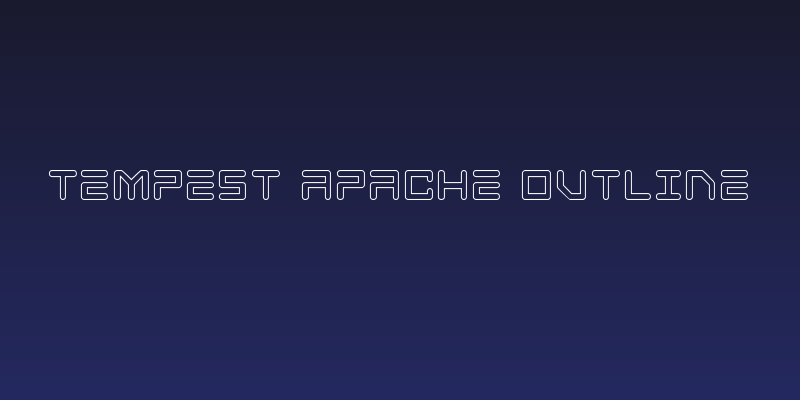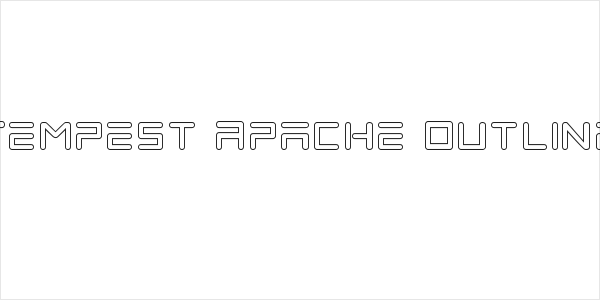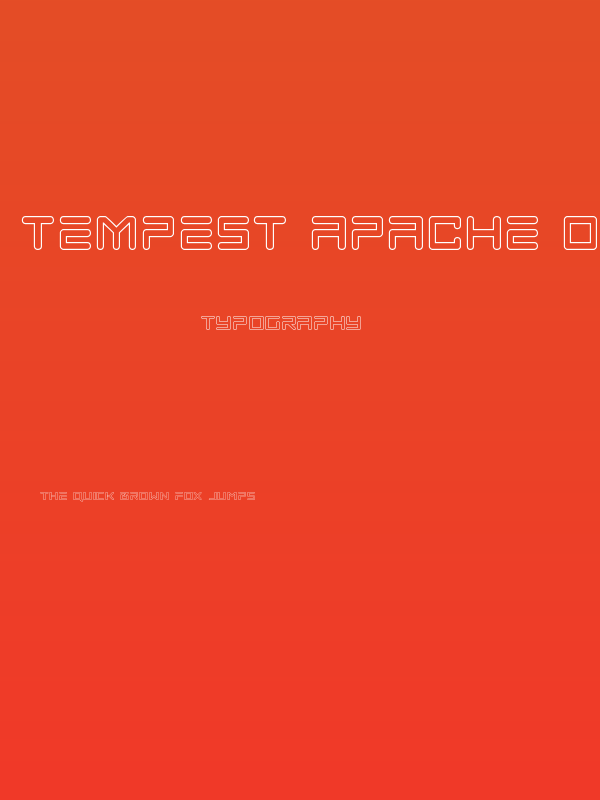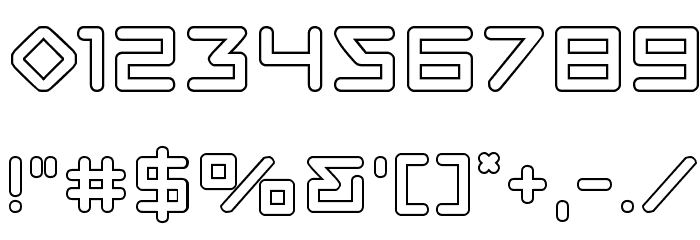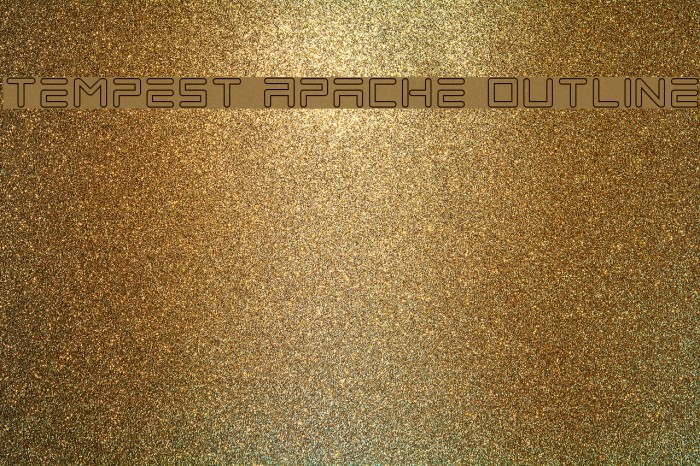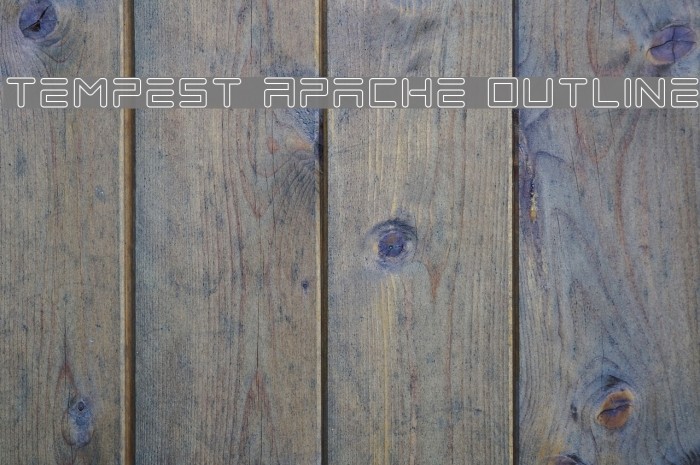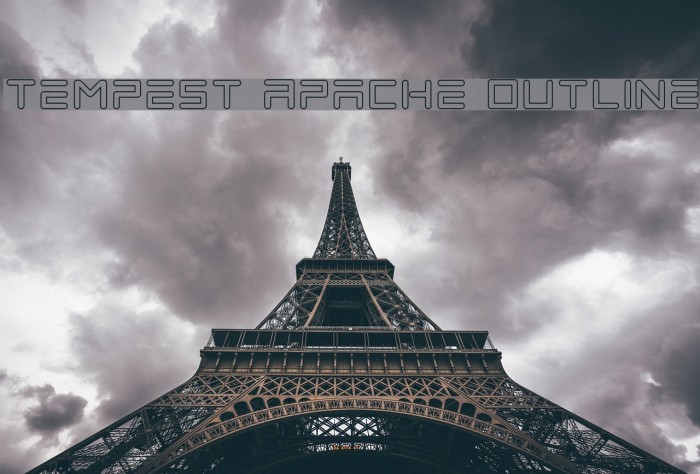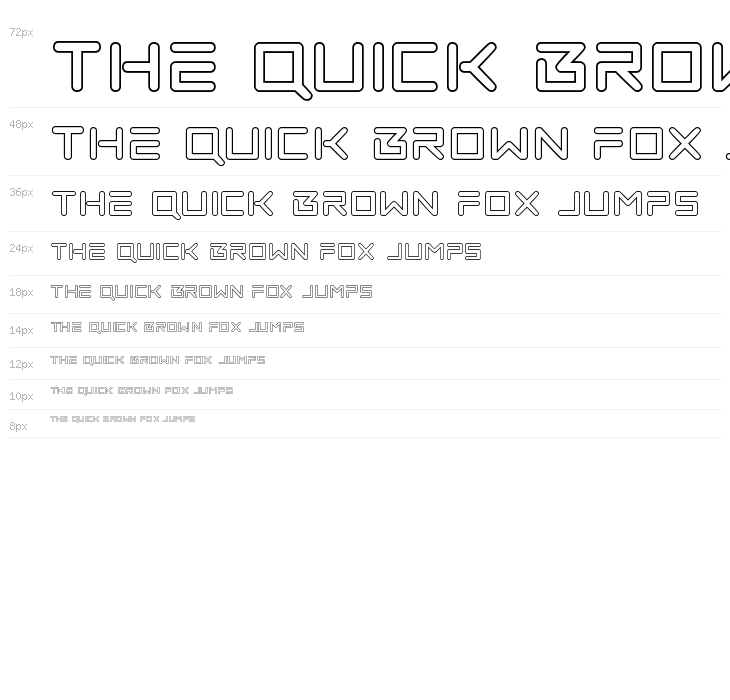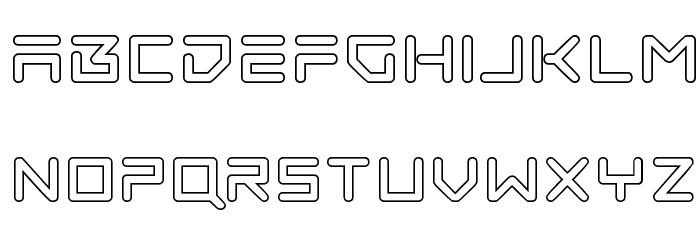
Tempest Apache Outline Font
Tempest Apache Outline Description
This font features a modern, geometric outline style that is both bold and eye-catching. Each character is crafted with precision, showcasing clean lines and angular shapes that give it a futuristic and technical appearance. The uppercase and lowercase letters maintain a consistent height, contributing to a uniform look. The numerals and special characters are designed with the same attention to detail, ensuring a cohesive aesthetic across all elements. The outline nature of the font adds a unique dimension, making it suitable for projects that require a standout, contemporary typeface.
| Use Case | Logos, Headlines, Posters |
| Proposed Projects | Ideal for technology branding, sci-fi themed designs, posters, and digital media. |